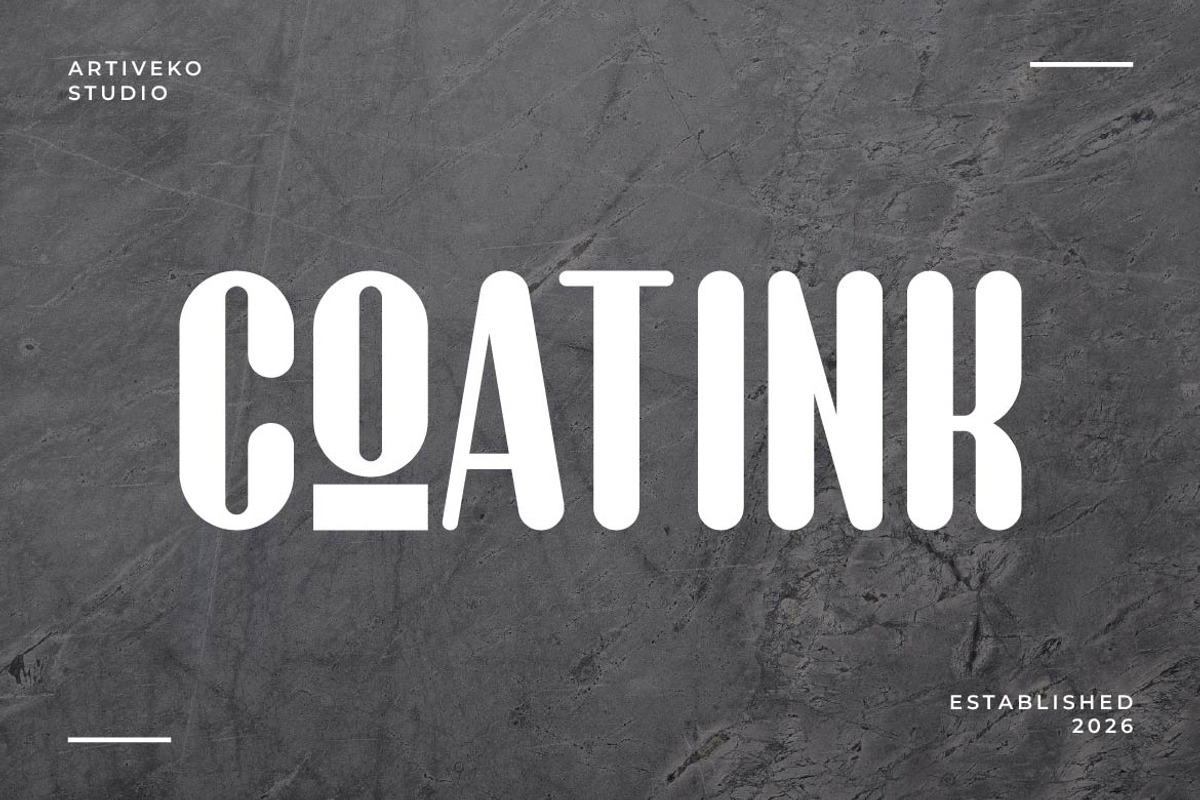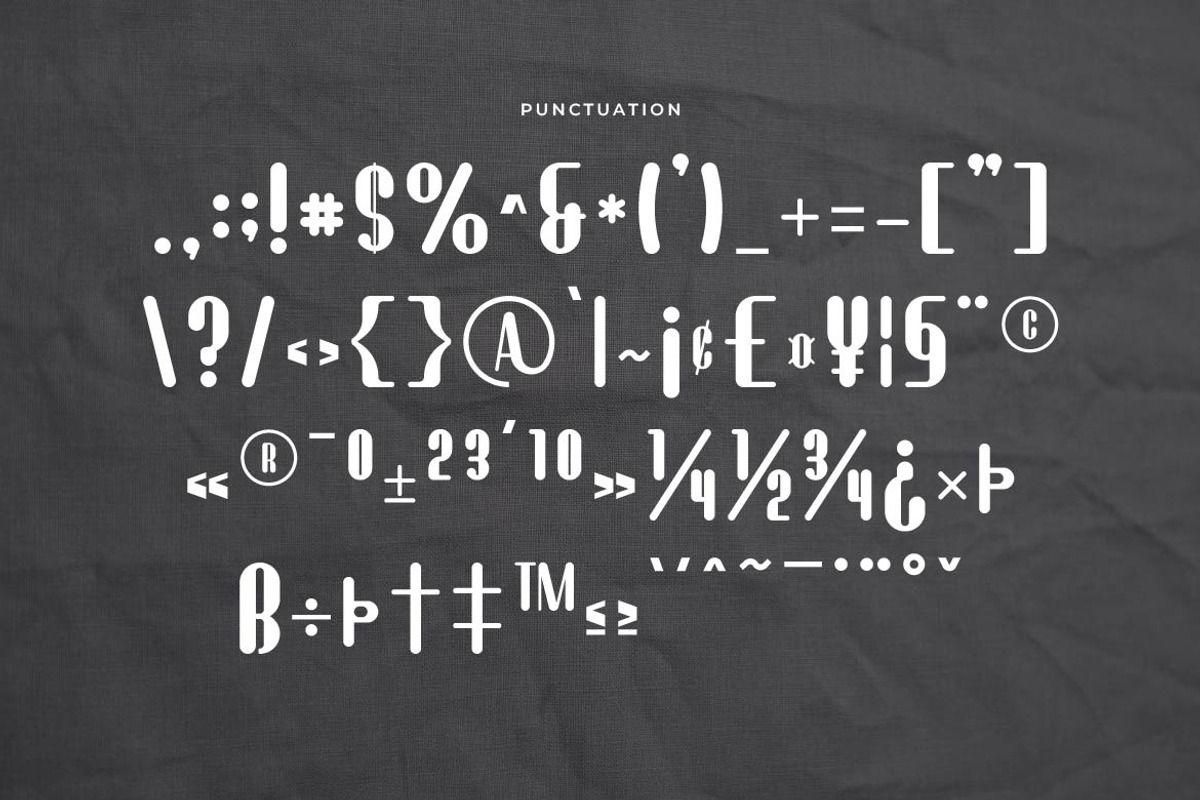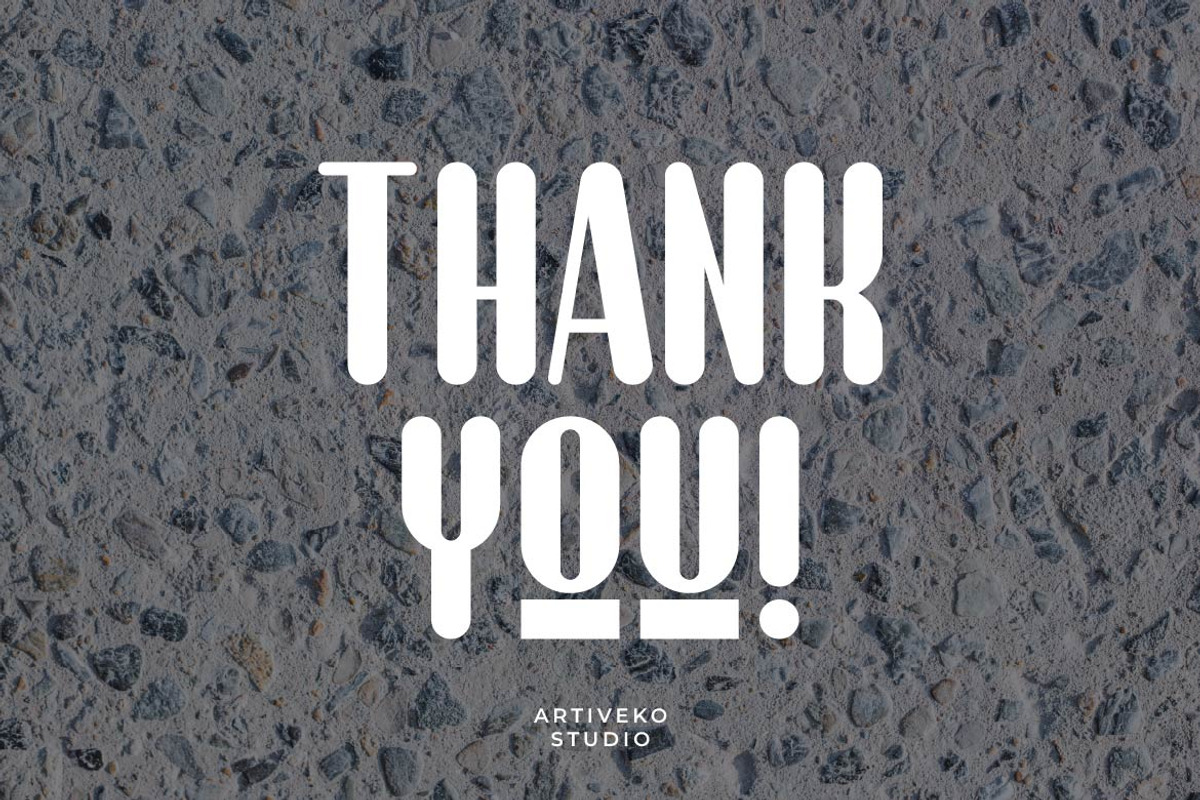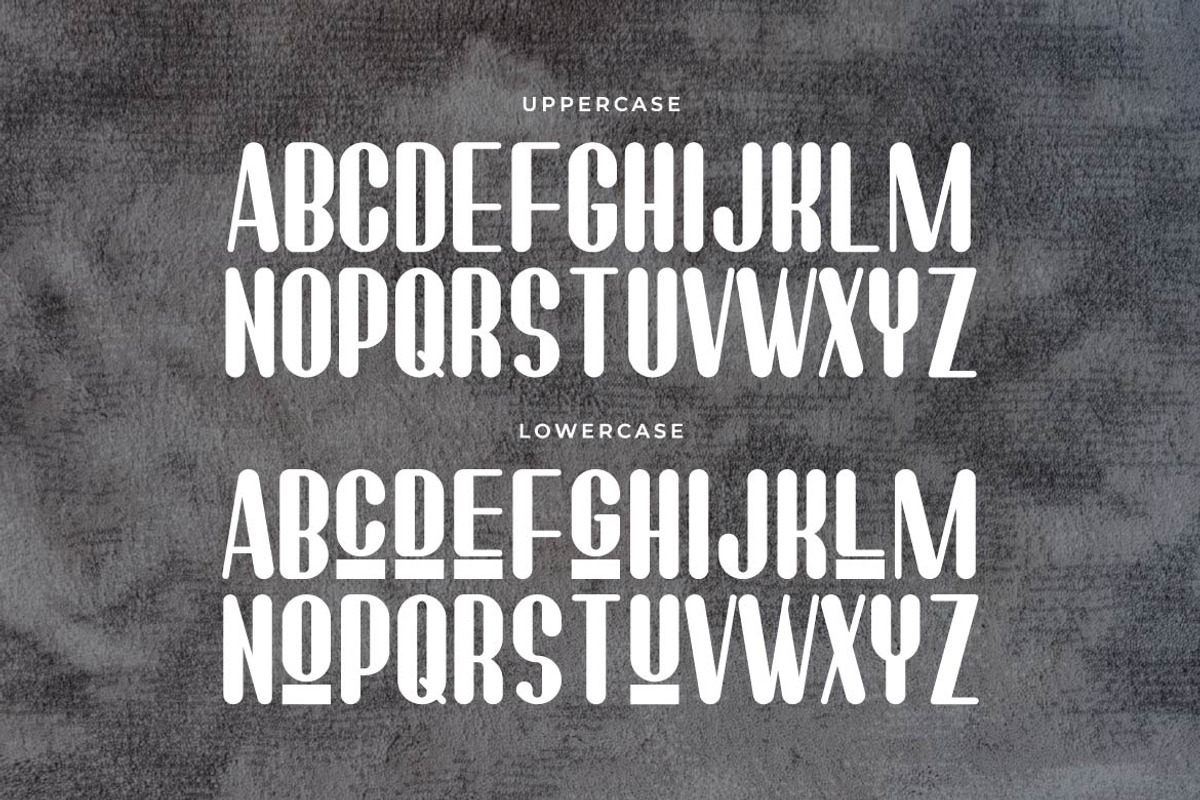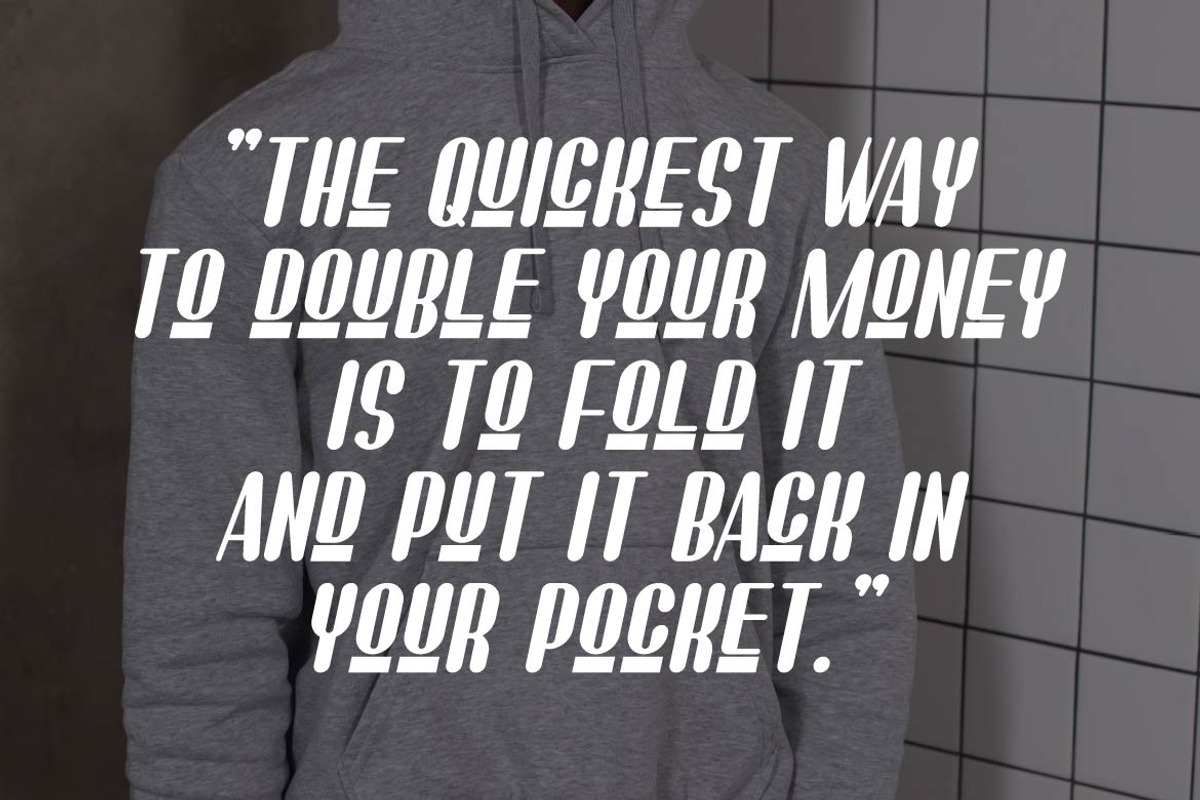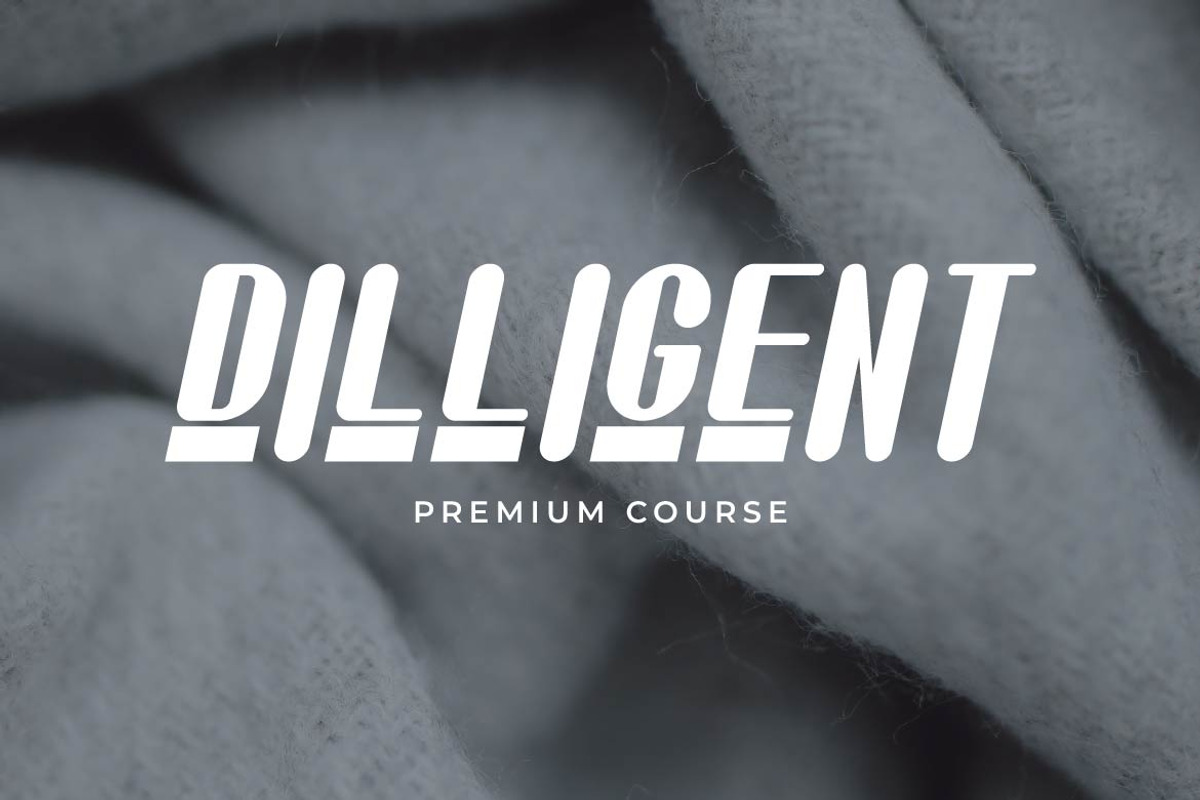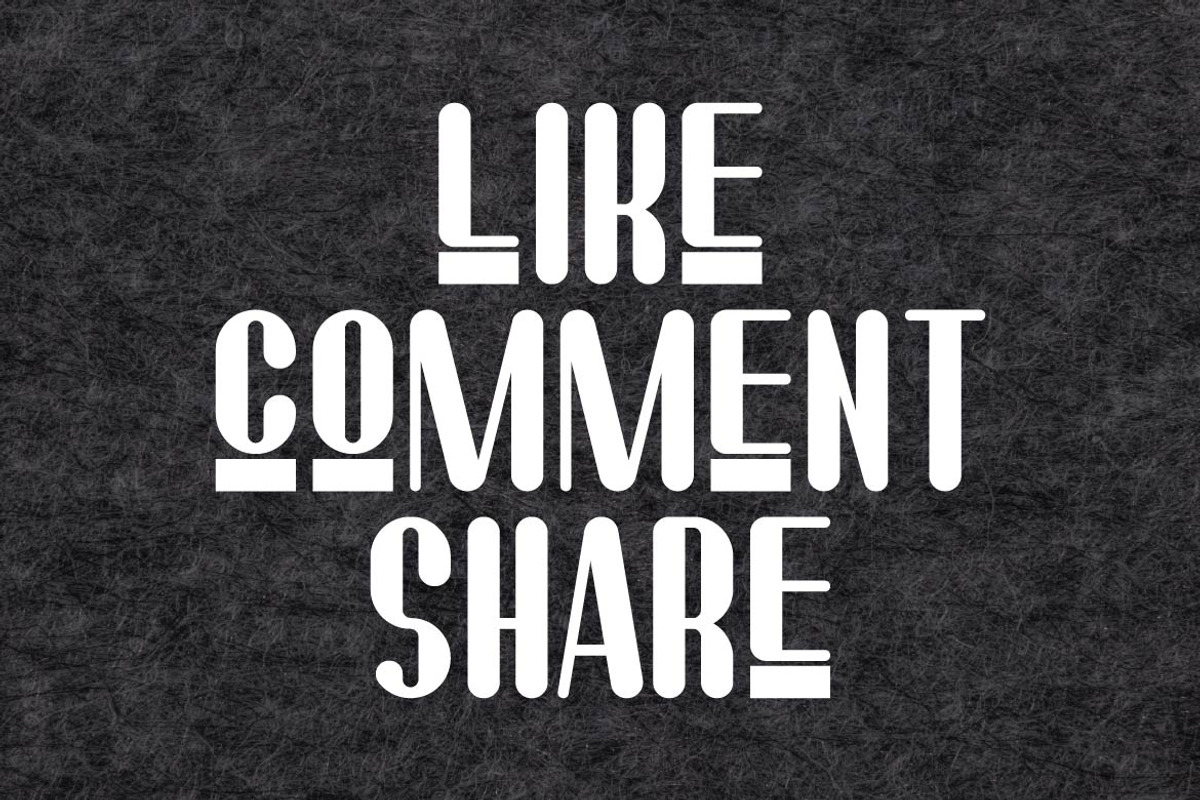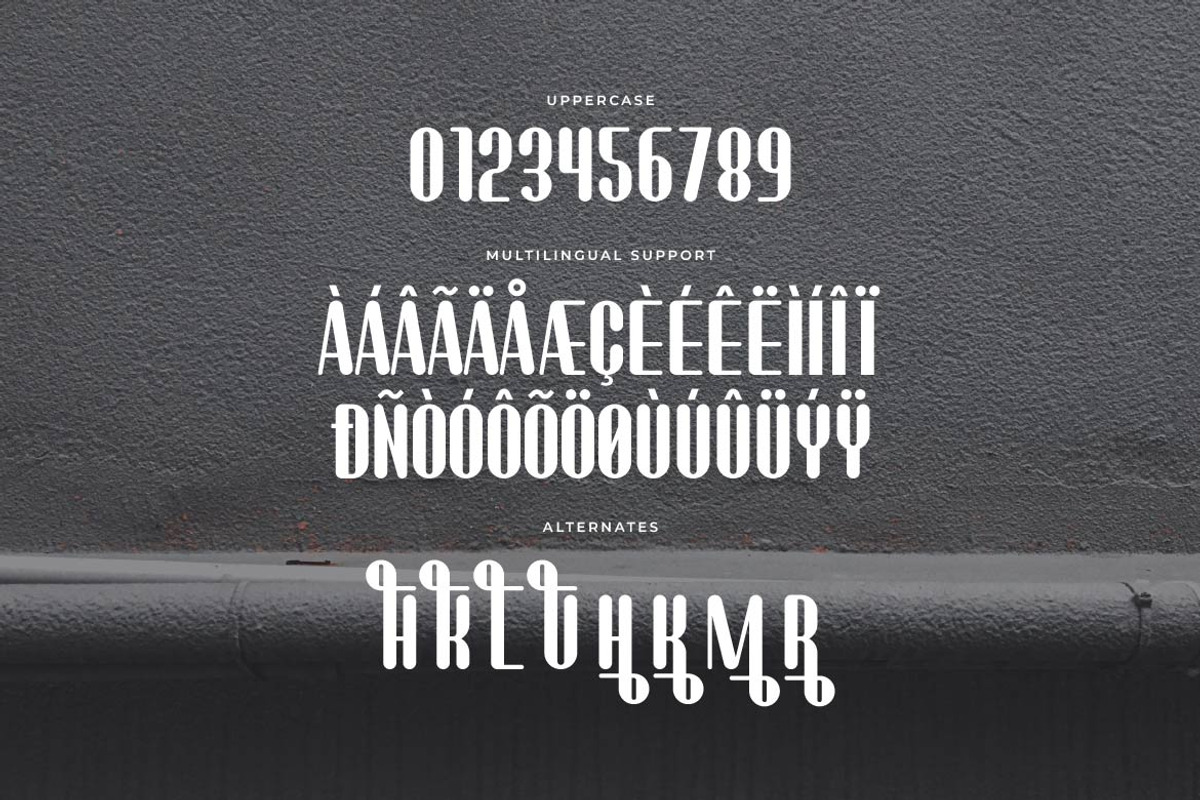
Coatlink – Rounded Condensed Font
Coatlink is a rounded condensed typeface that combines modern minimalism with a friendly, approachable character. Featuring smooth curves, compact proportions, and clean geometric construction, Coatlink creates a distinctive visual style that's both space-efficient and highly memorable.